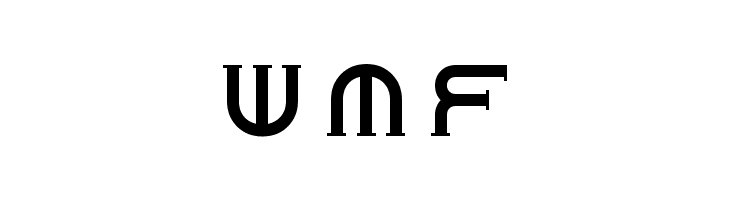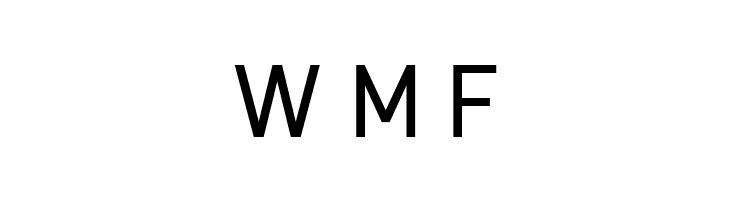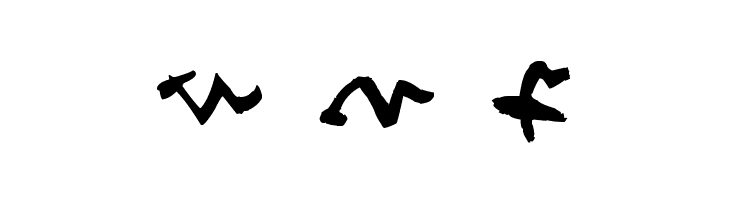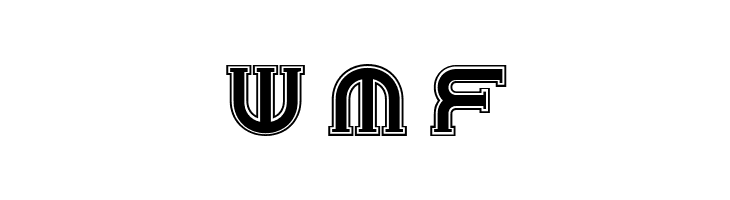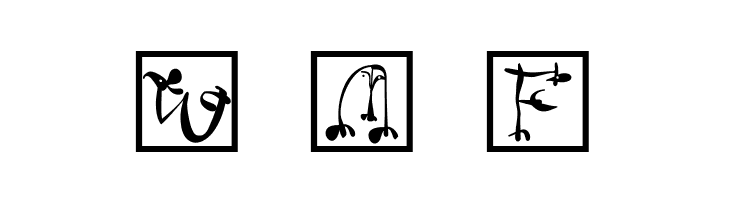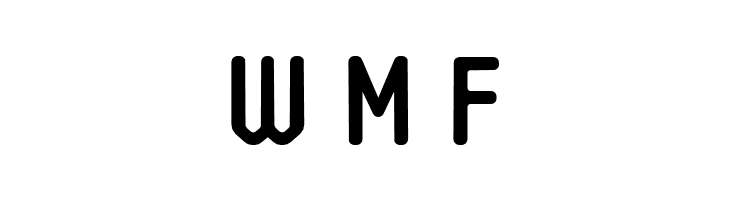
• Goody Buttie
A bold, playful handwritten font with thick strokes and lively shapes.
• Gordita Alegre
A bold, rounded font with a playful and whimsical style.
• Gordita Alegre
A bold, playful font with rounded, outlined characters and a whimsical style.
• Goreng
A bold, brush-style handwritten font with an expressive and artistic flair.
• Gorgeous Girls
• Gorwelion
A traditional Blackletter font with bold, angular strokes and high contrast.
• Goth Goma__G
A bold, Gothic-inspired font with sharp, angular edges and intricate detailing.
• Goth Goma__G
A bold, Gothic-style font with sharp, angular lines and ornate detailing.
• GoticCaps
An ornate, Gothic-style decorative font with intricate details.
• Gotika
A geometric, angular font with Gothic-inspired decorative elements.
• Gotika Apvalus
A bold, Gothic-style font with rounded terminals and ornate details.
• Gotika Brokas
A bold, gothic-style font with sharp angles and dramatic contrast.
• Gotika Serifai A
A geometric serif font with sharp angles and modern design elements.
• Gotika Serifai B
A gothic-inspired serif font with sharp angles and decorative elements.
• GouldenTreatise
An elegant, cursive font with intricate swirls and flourishes.
• Grado Gradoo NF
A playful, geometric font with bold, rounded shapes and dynamic cutouts.
• Graffiare
• GrafomanStd
A symbol font with office, document, and weather icons in a clean, outlined style.
• Gramophone NF
A bold, vintage-inspired serif font with strong, heavy strokes.
• Gramophone Shaded NF
A bold, vintage-style font with a three-dimensional shaded effect.
• GramophoneShadedNF
A bold, decorative font with a retro, shaded 3D effect.
• Grand Alphabet [Arial]